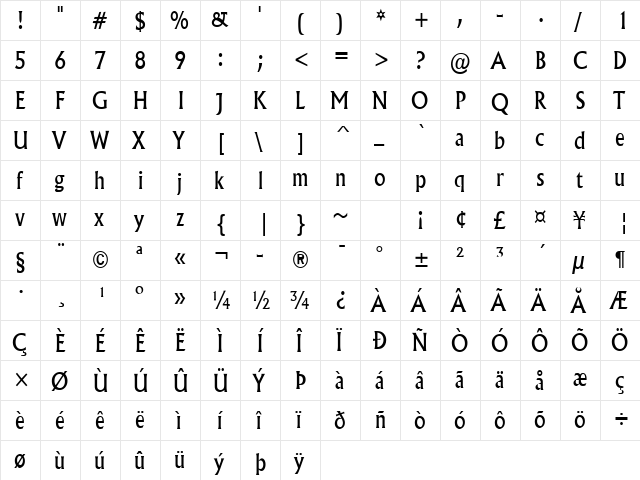
Flair-Condensed Normal
Design Context for Flair-Condensed Typeface
Flair-Condensed offers clean, dependable letterforms without strong stylistic allegiance, making it a practical choice for designers who need flexibility. The condensed width makes it efficient for tight spaces without sacrificing legibility.